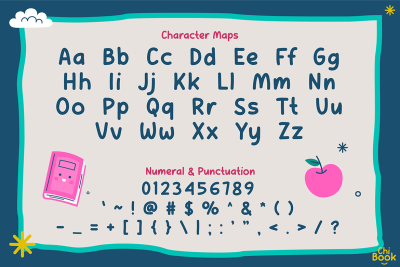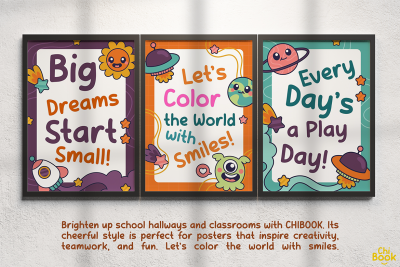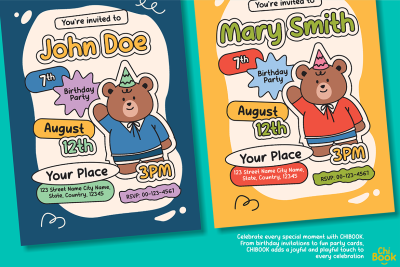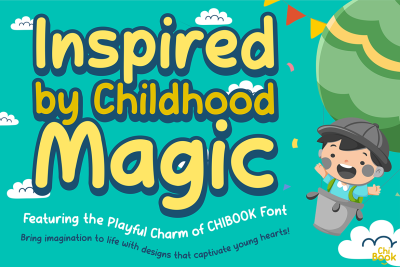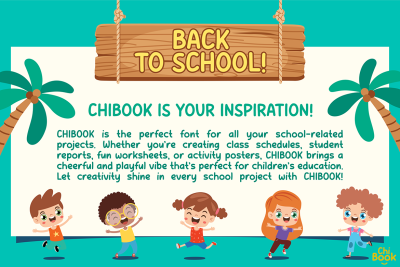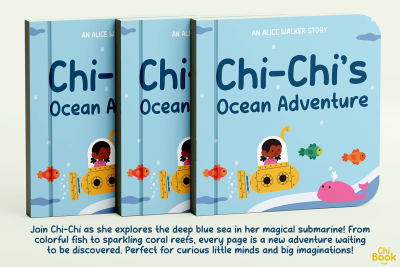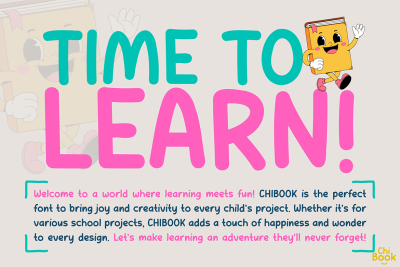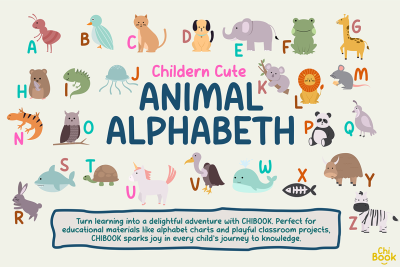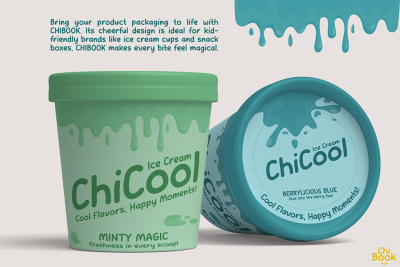
Kids Font Chibook is a playful and cheerful typeface designed to capture the fun and energy of childhood. Its rounded edges and soft letterforms make it friendly and engaging. The fontโs design is simple yet charming, which makes it easy to read while maintaining its unique personality. Whether for childrenโs books, educational materials, or kid-focused branding, Chibook adds joy and creativity to any project.
The hand-drawn style of Kids Font Chibook gives it a warm and personal feel. Each letter exudes fun and imagination, creating a connection with young audiences. Its clean yet quirky design ensures readability, whether used for headlines or body text. Chibook makes messages clear while keeping them visually appealing and exciting. Itโs the perfect tool to inspire creativity and bring a smile to your audience.
Kids Font Chibook Perfect For
Kids Font Chibook is perfect for designers and creators working on kid-friendly projects. It works wonderfully for posters, banners, and flyers for events like birthday parties, school fairs, or summer camps. The playful look makes it an excellent choice for childrenโs product packaging, including toys, books, snacks, and clothing. Whether youโre branding a daycare, toy store, or kid-friendly cafรฉ, Chibook ensures a lighthearted and joyful impression.
Teachers and educators can use Chibook to design fun learning materials. Worksheets, flashcards, presentations, and activity books become more engaging with this font. It keeps young learners focused while adding a visually pleasing touch to educational content. Parents can also use Chibook to personalize birthday invitations, party decorations, and school labels.
Content creators will appreciate how well Chibook works on digital platforms. Itโs perfect for YouTube thumbnails, kid-friendly websites, and social media posts targeting families. Chibookโs clear letters and fun style grab attention, ensuring your message stands out. It also works well for childrenโs apps, animations, and digital ads, making them both professional and playful.
Businesses focused on families and children can also benefit from this font. Whether for bookshops, play centers, or entertainment venues, Chibook enhances branding with its happy and welcoming tone. It works across logos, signage, or merchandise like t-shirts and mugs. The font helps you connect with both kids and parents in a fun and authentic way.
In short, Kids Font Chibook is the ideal choice for any child-focused design. Itโs easy to read, versatile, and full of character. Whether for print or digital media, it brings creativity and warmth to your project. Use Chibook to create designs that inspire joy, encourage learning, and leave a lasting impression on young audiences.